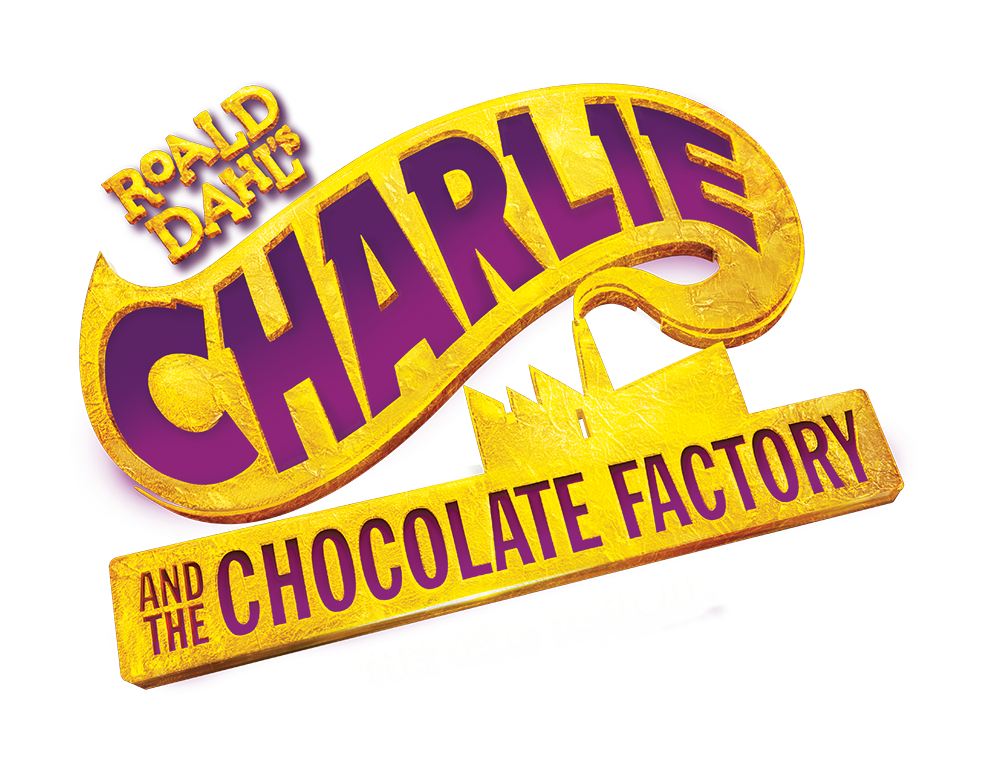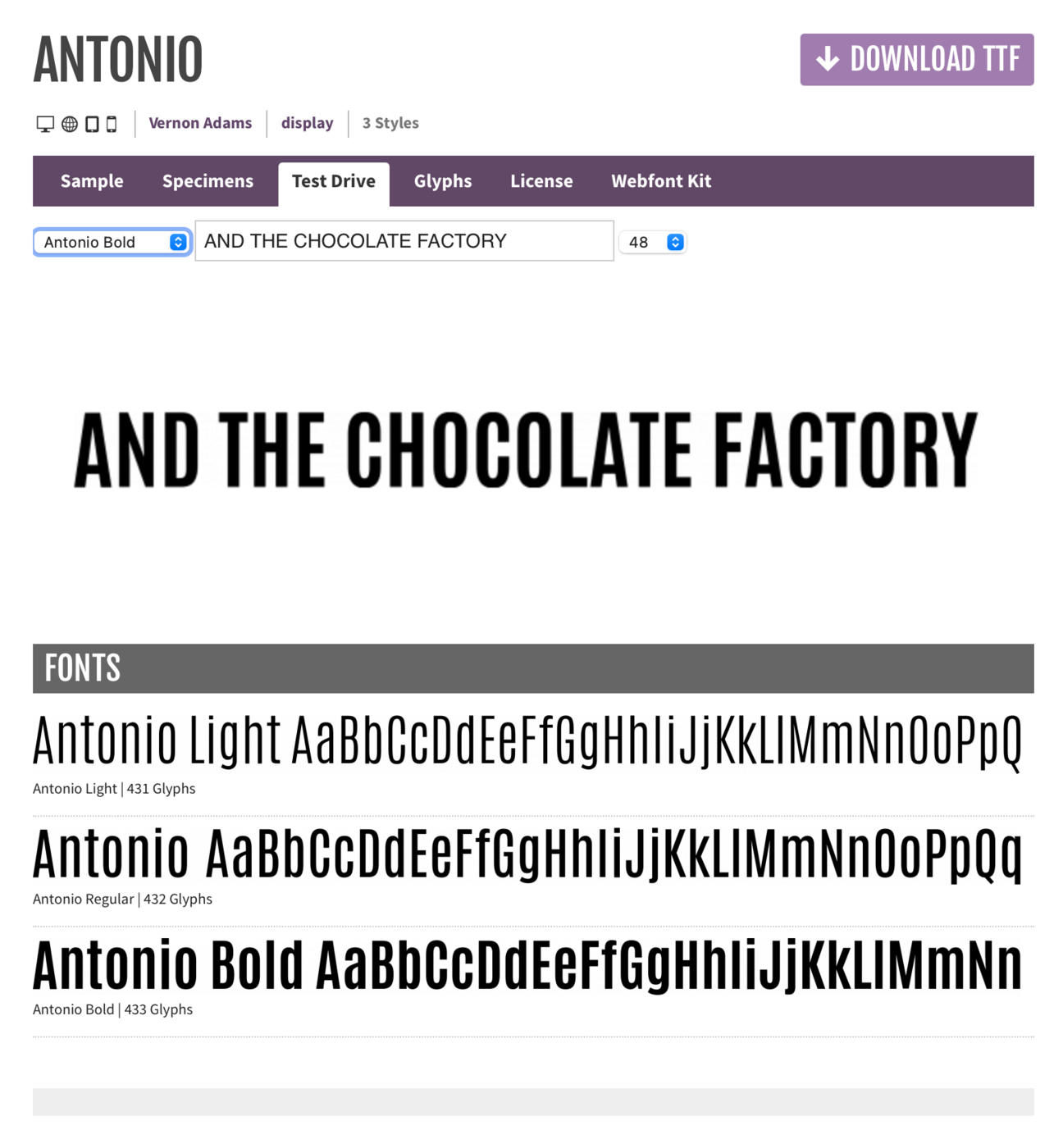
Charlie and the Chocolate Factory Musical Logo Font
I'm trying to identify the two fonts used in this logo, I'm helping with a school production, so I'd love if I could find free fonts to use in our posters/playbills, etc.  I've tried all my usual sites for matching fonts and can come close with the main font, but am coming up short trying to match the "Roald Dahl" font.  Any help would be awesome! Thank you!
A "free" alternative to Trade Gothic Compressed Bold could be Antonio Bold. The nice thing about Antonio is that it comes in three weights, for flexible use. Another alternative to consider would be Bebas Neue Pro (commercial) or League Gothic (open source). As for Dynamo, there's a font called Nougat on DaFont that seems to be "free", at least for personal use, but it seems to be more or less a knock-off of Dynamo, so there might be some legal issues. I think I'd rather go with Chunk Five which has a similar personality, and no legal insecurities attached to it. You can buy Museo Slab 500 for $0 at Fontspring.